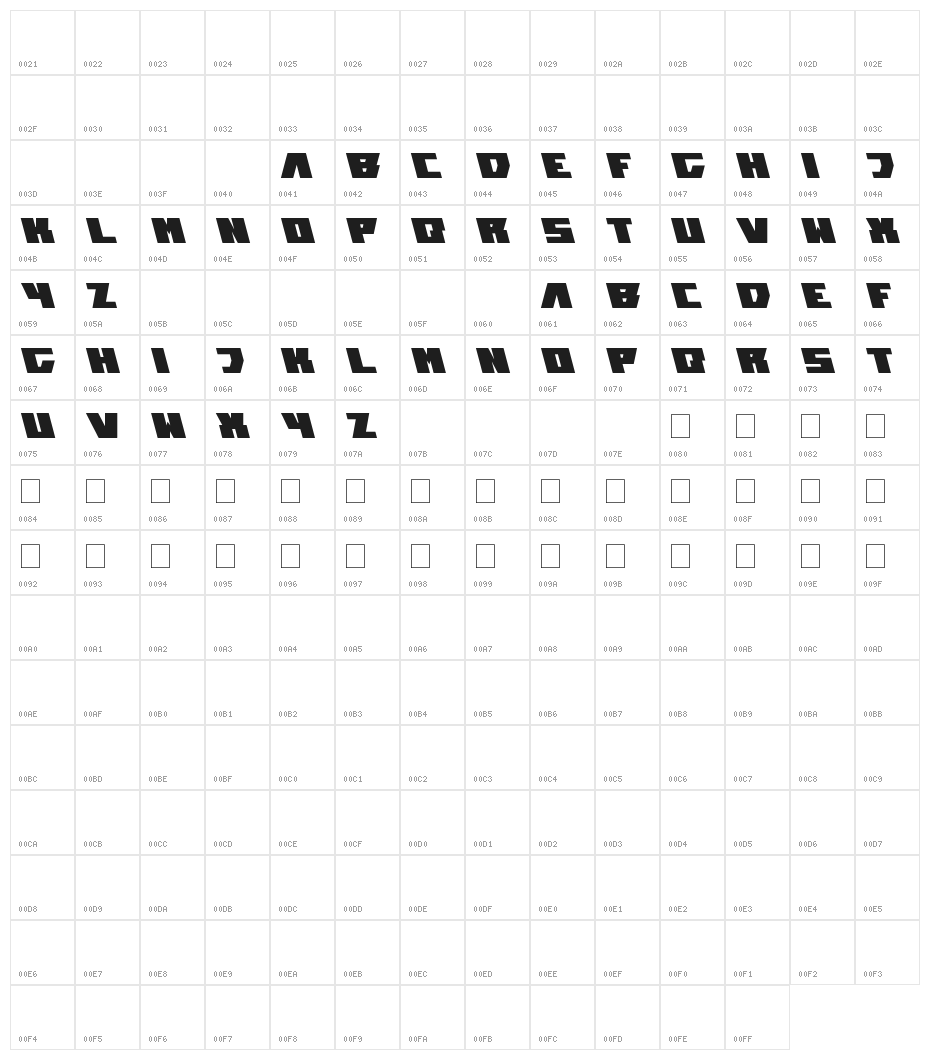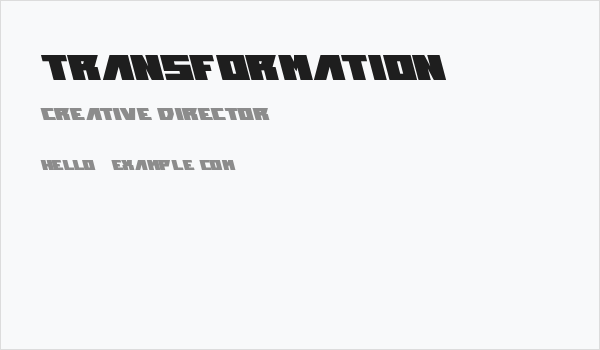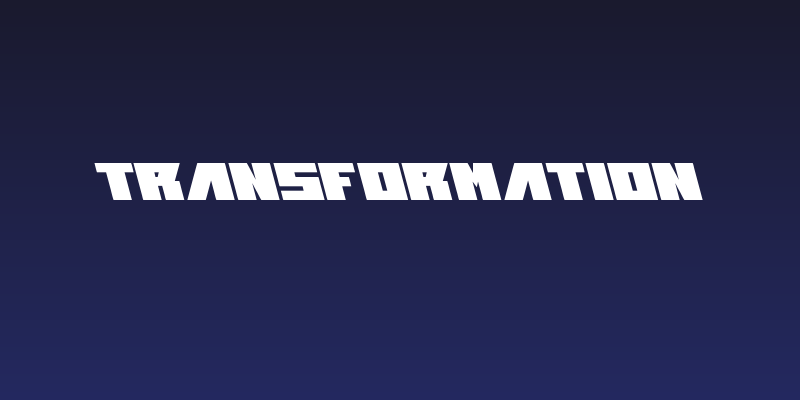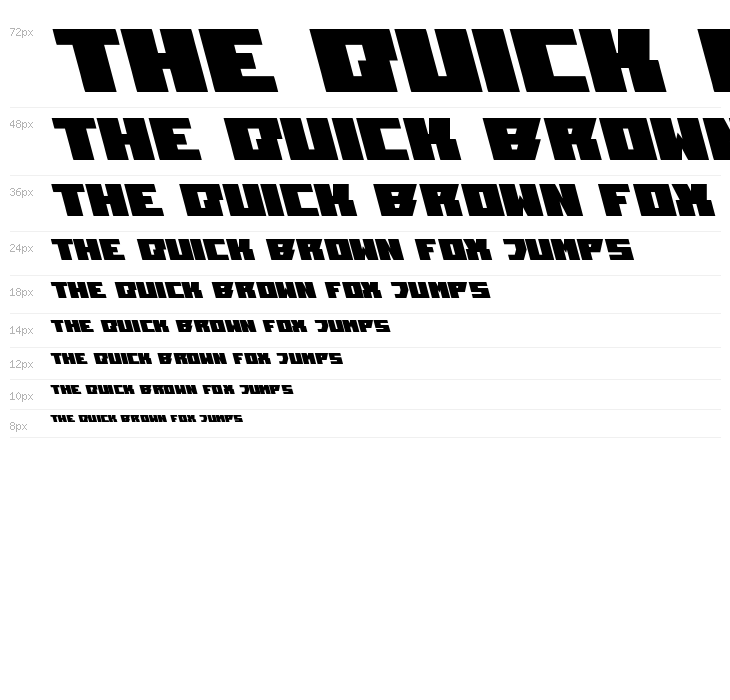
transformation Font
transformation Description
This font features a bold, geometric design with sharp angles and a futuristic aesthetic. The characters are constructed with thick, block-like shapes that convey a sense of strength and modernity. The uppercase letters are particularly striking, with a uniform height and width that create a cohesive and impactful visual presence. The font lacks any curves, emphasizing straight lines and angular forms, which contributes to its dynamic and edgy appearance. It is highly legible at larger sizes, making it ideal for attention-grabbing headlines or titles. The overall style is distinctly modern and would suit projects that require a bold and assertive typeface.
Proposed ProjectsIdeal for sci-fi themed designs, video game titles, tech branding, and modern posters.